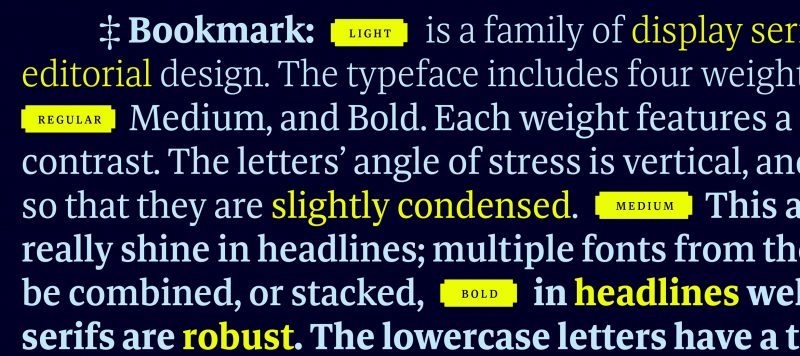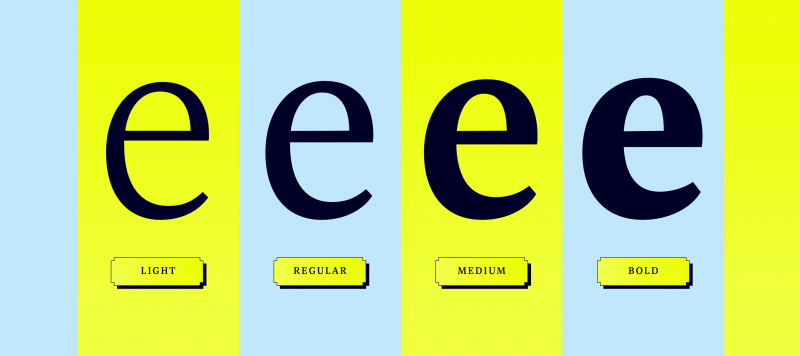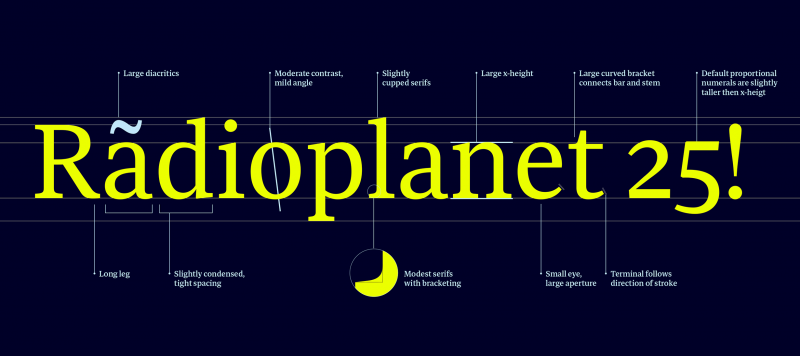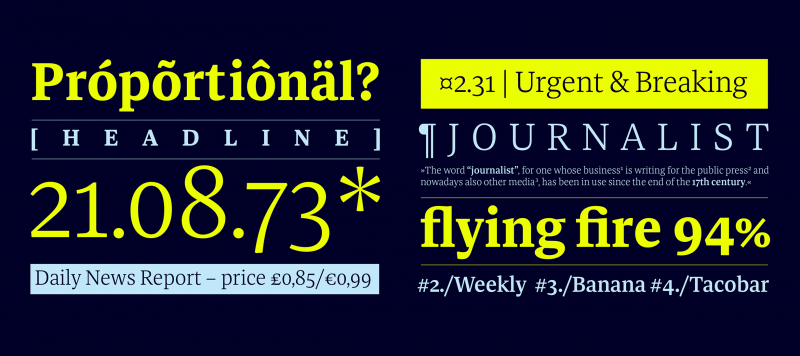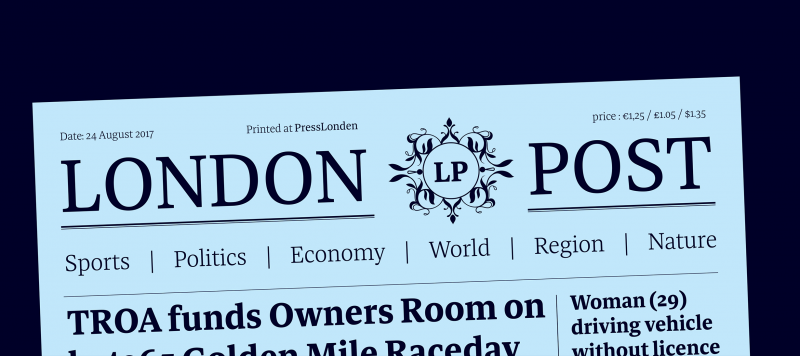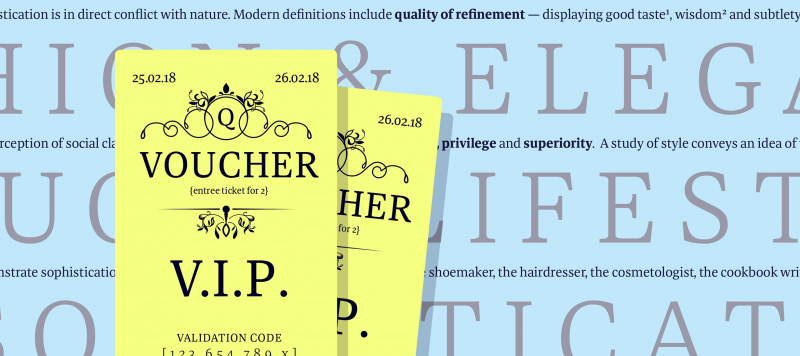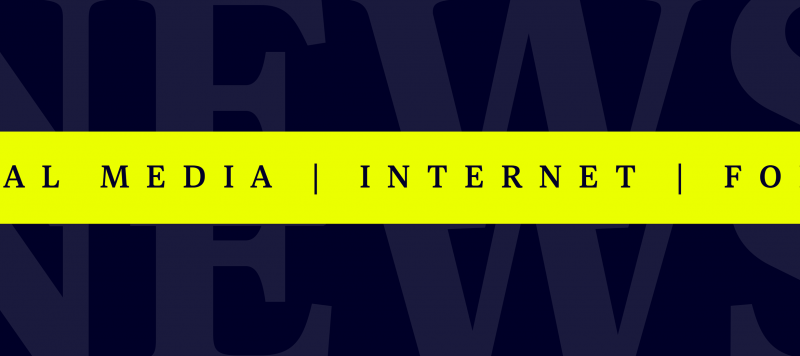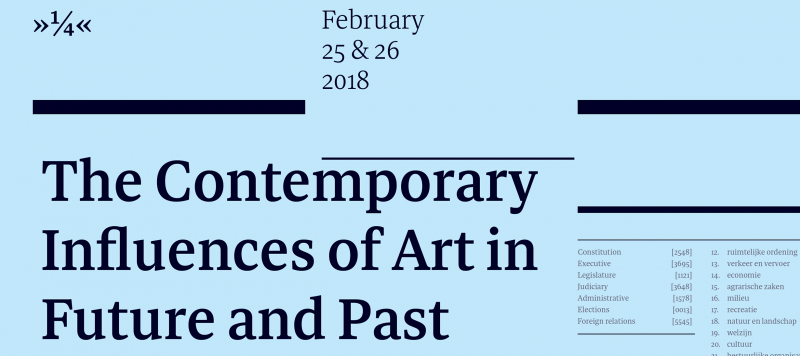
Bookmark is a family of display serif fonts for use in editorial design. The typeface includes four weights: Light, Regular, Medium, and Bold. Each weight features a high degree of stroke contrast. The letters’ angle of stress is vertical, and they are all drawn so that they are slightly condensed. This allows Bookmark to really shine in headlines; multiple fonts from the family can either be combined, or stacked, in headlines well, too. Bookmark’s serifs are robust. The lowercase letters have a tall x-height, and the ascenders rise above the height of its capital letters quite a bit. The fonts’ numerals are oldstyle figures; however, they are slightly taller than the lowercase letters. Bookmark was designed by Lukas Schneider.
Family Name | Bookmark |
Designer(s) | Lukas Schneider |
Classification | Serif |